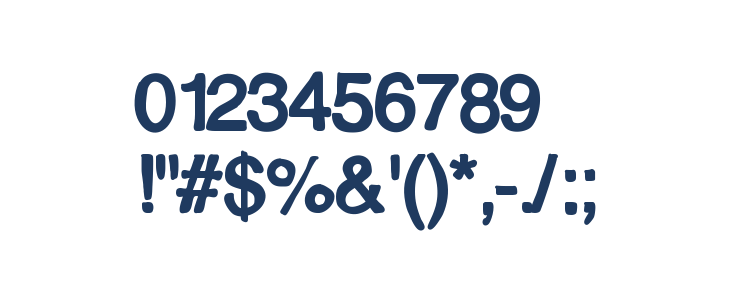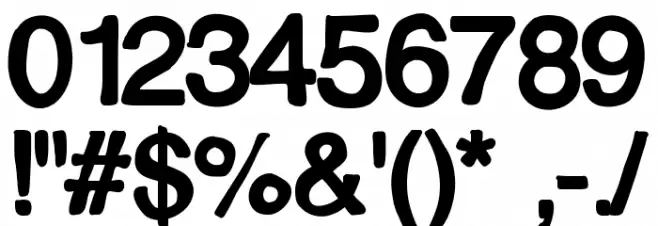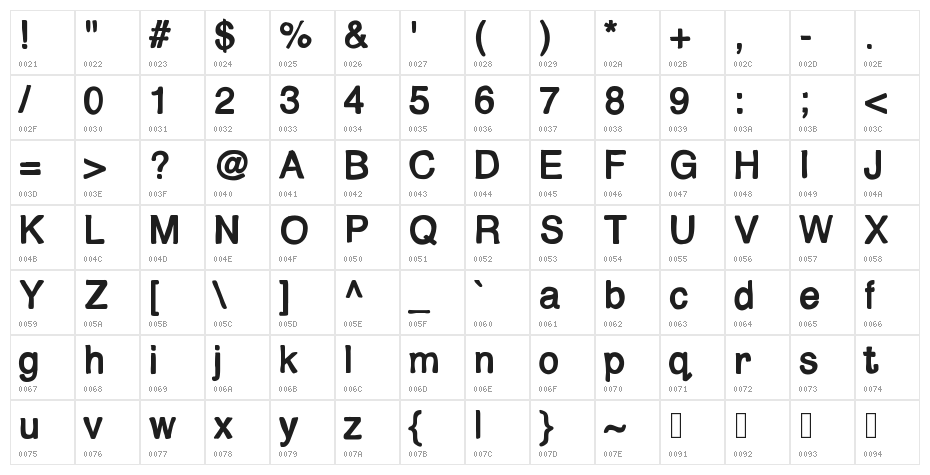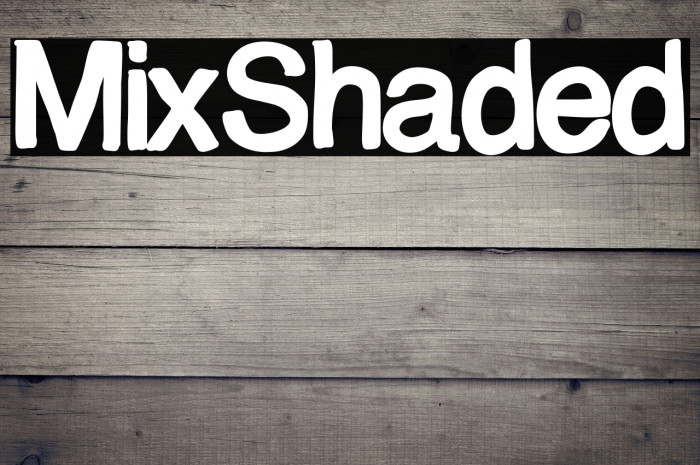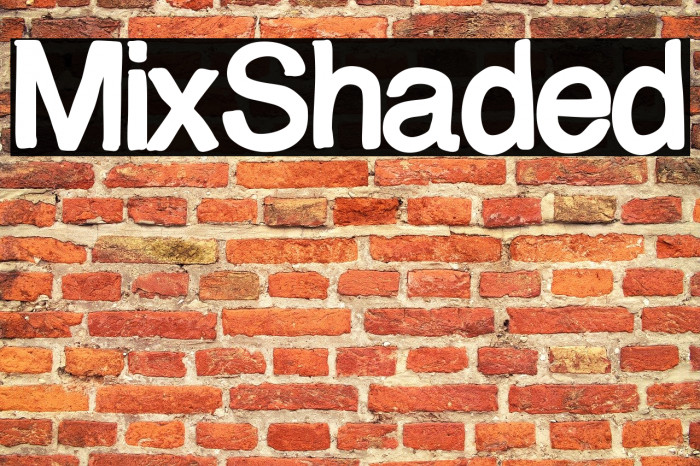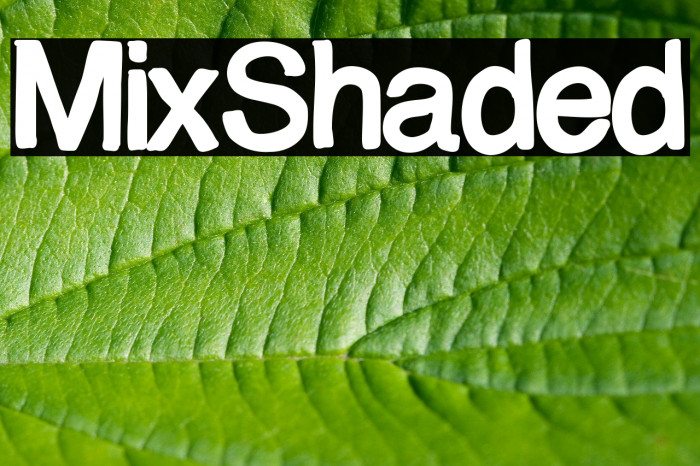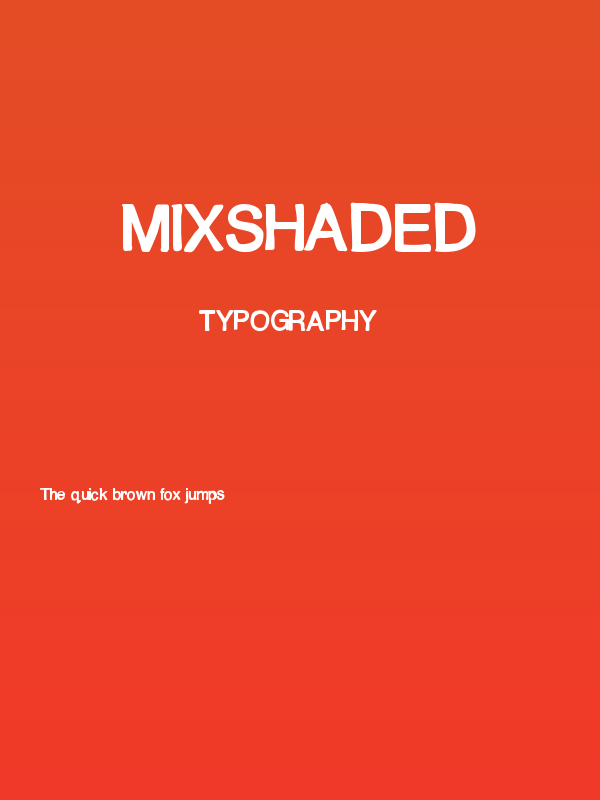
MixShaded Font
MixShaded Description
This font features a playful and bold style with rounded edges, giving it a friendly and approachable appearance. The characters are slightly condensed, which adds to its unique charm. The uppercase and lowercase letters maintain a consistent thickness, providing a uniform look across the board. The numerals and special characters are designed to match the overall aesthetic, ensuring a cohesive feel. The font's boldness makes it stand out, while the rounded forms soften its impact, making it suitable for a variety of creative projects.